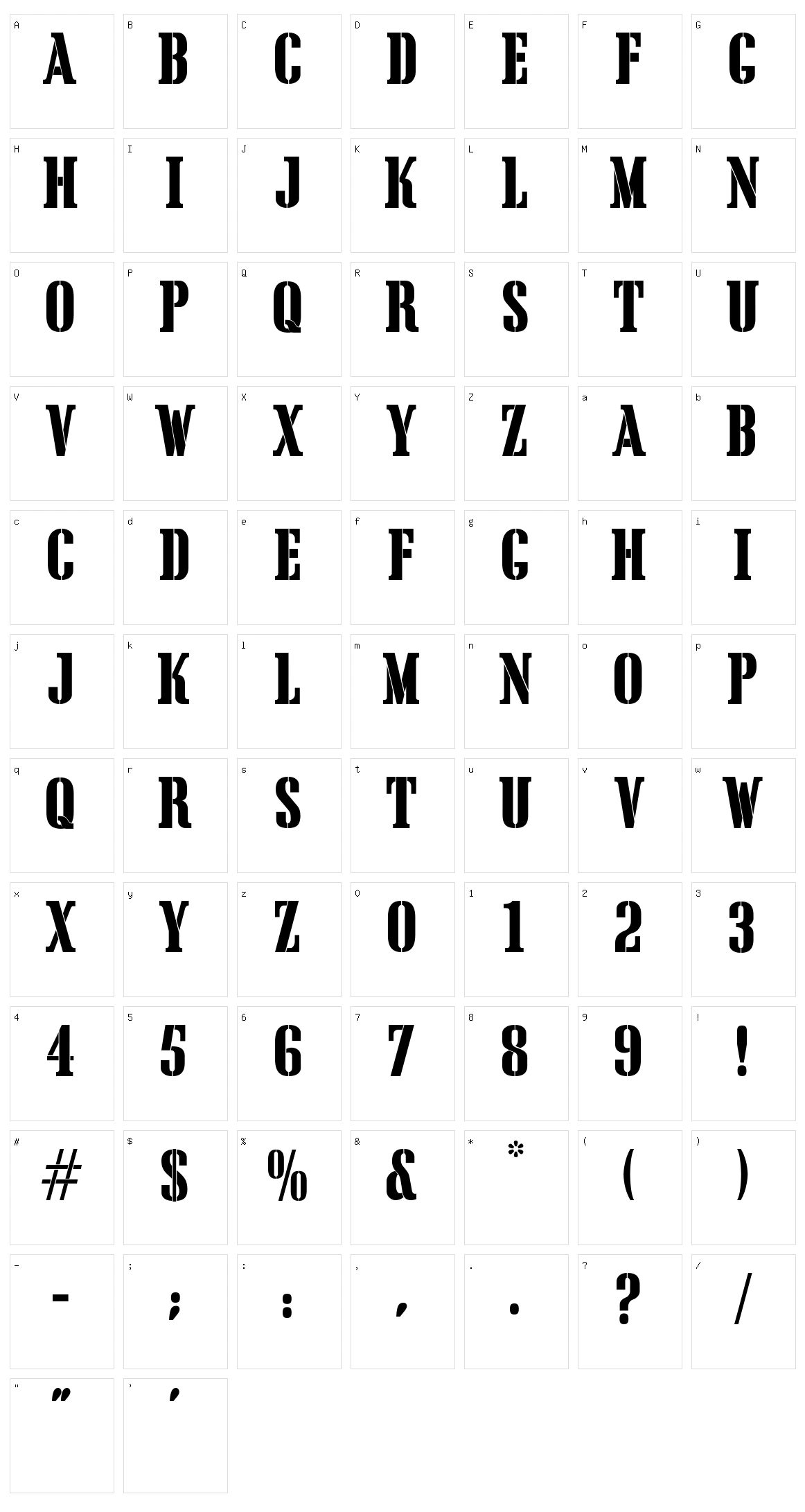
The free font Cargo Crate is carefully designed by Mickey Rossi, showcasing a thoughtful balance of creativity and usability and falls under the Stencil font style. When you download the ZIP file, it contains only 9.62 KB of font files, making it lightweight and quick to download. Please review the license details below to understand permitted usage and distribution rights. If license information is not available, we recommend using this font for personal projects only or contacting the author directly for commercial usage permissions.